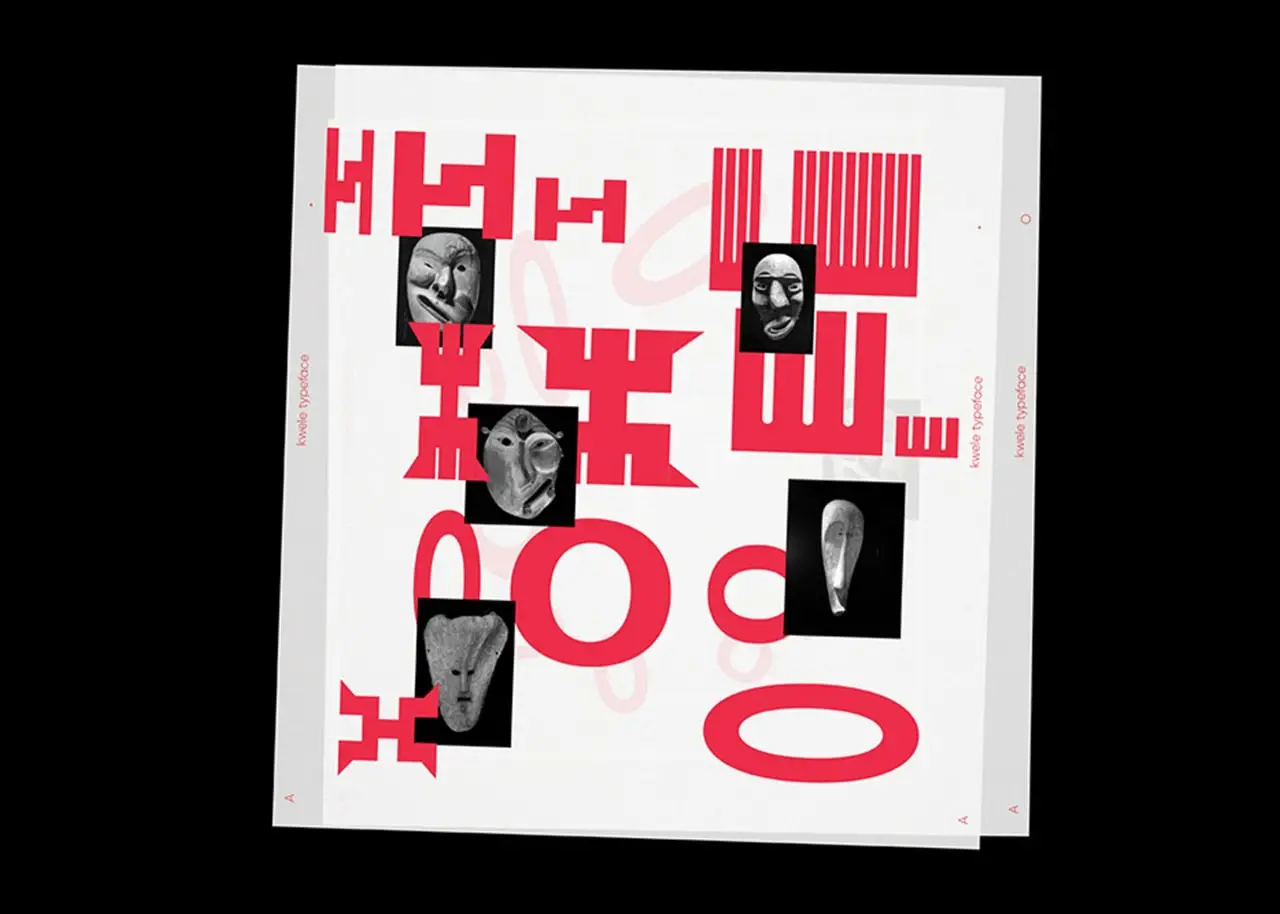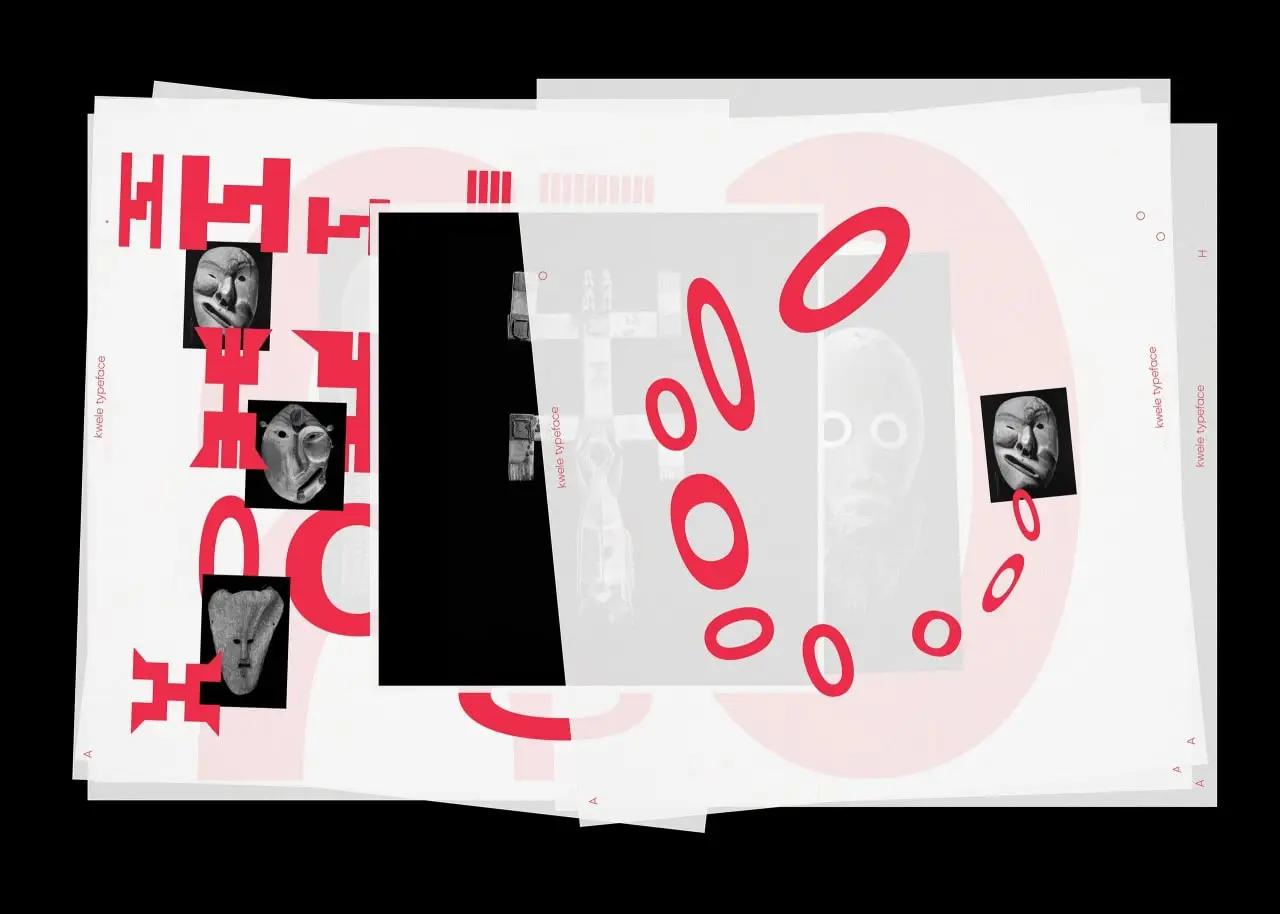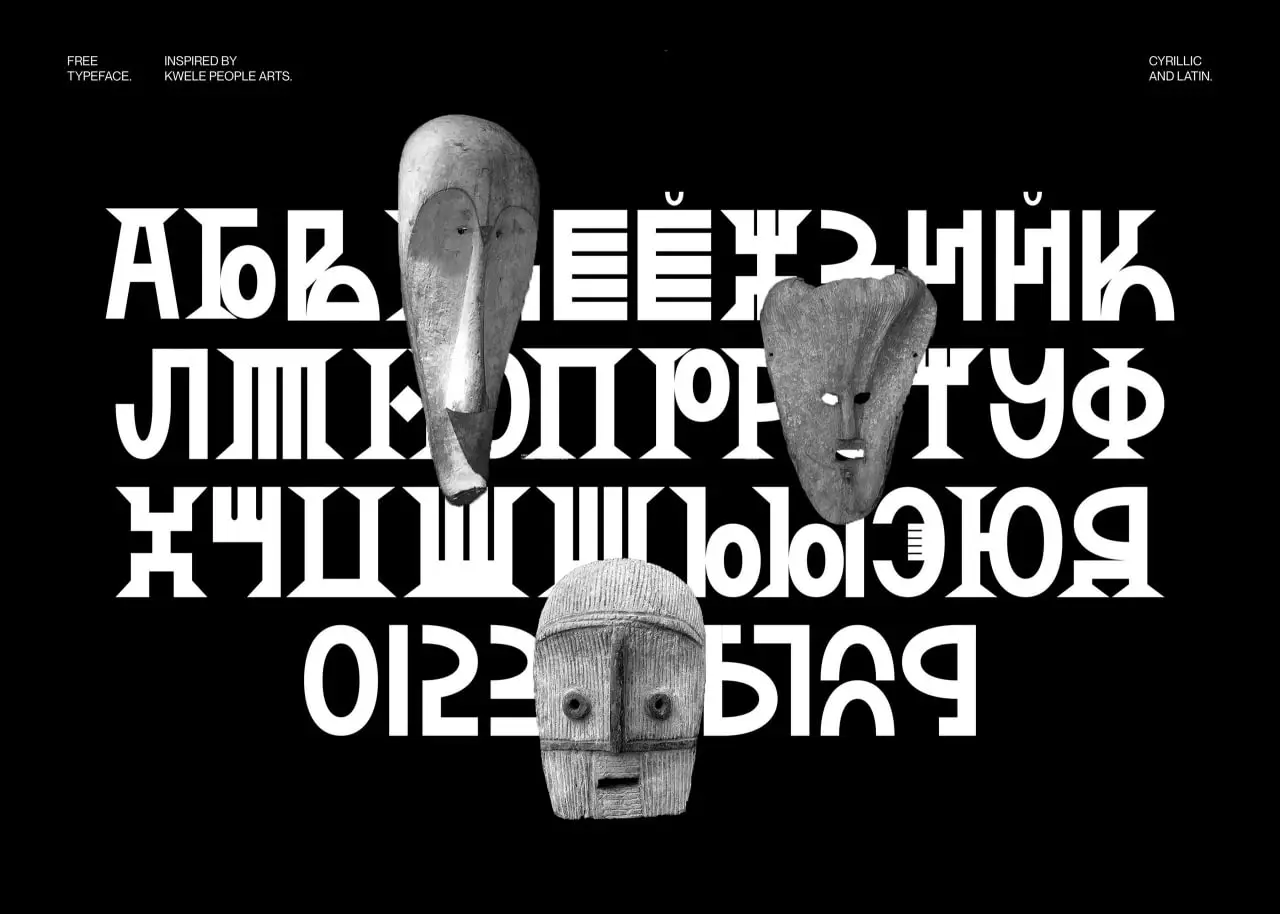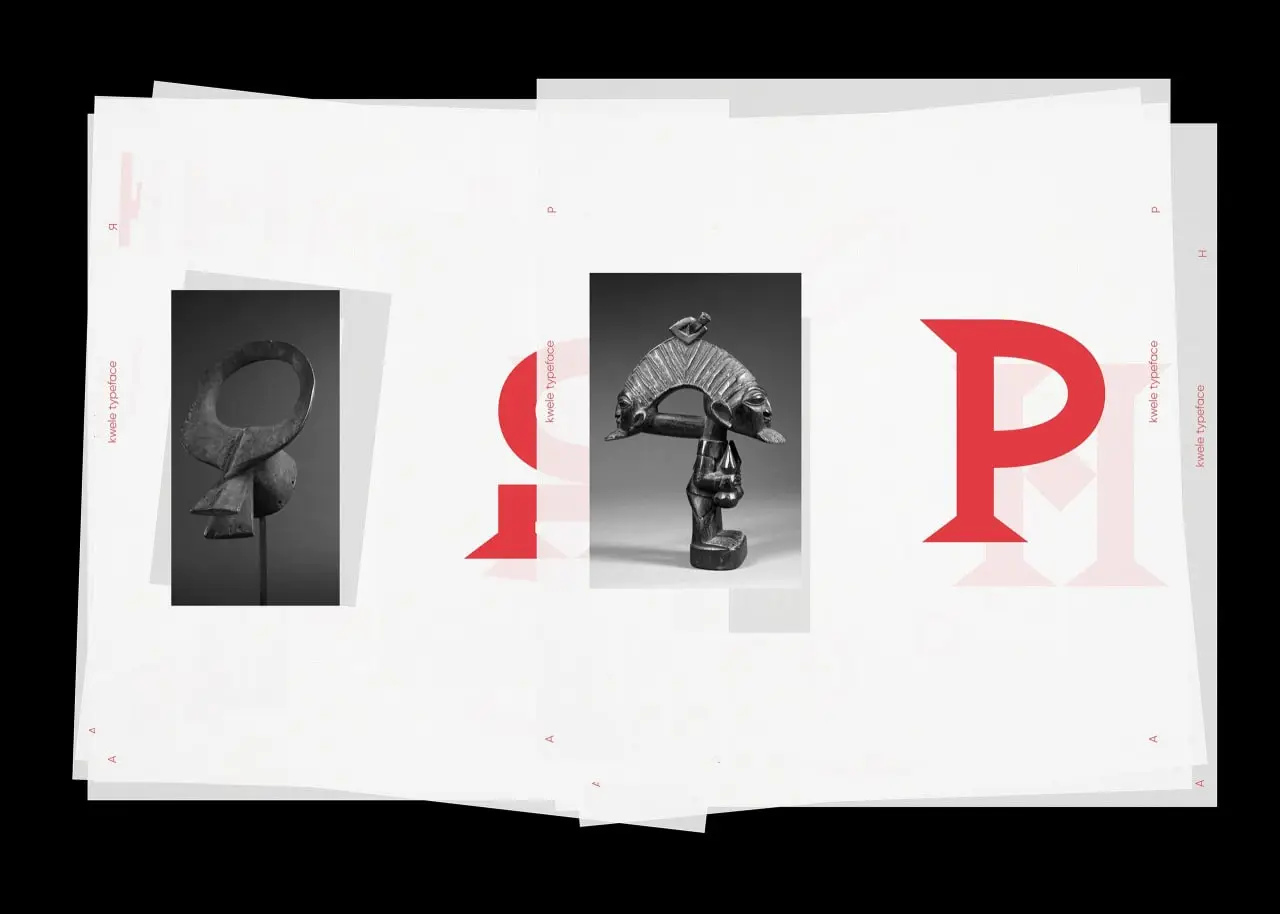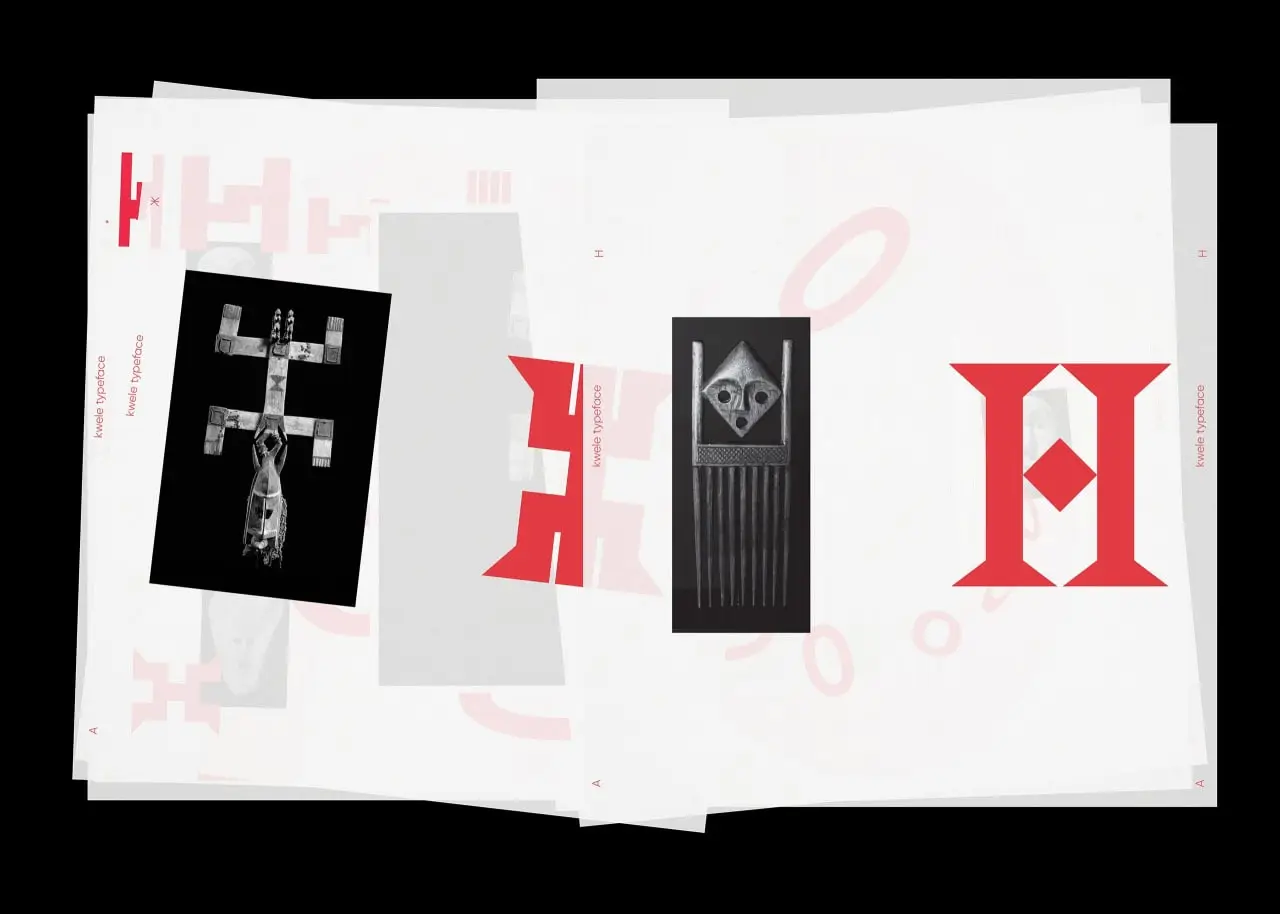
Kwele Font
The Kwele Font is a unique typeface that embodies a blend of modern aesthetics and cultural influences. With its clean lines and distinctive character shapes, this font is perfect for a variety of design projects.
• Stylish uppercase and lowercase letters
• Supports a wide range of languages
This font is ideal for branding, logo design, web content, and print materials. Its unique style can add a touch of sophistication to any project.